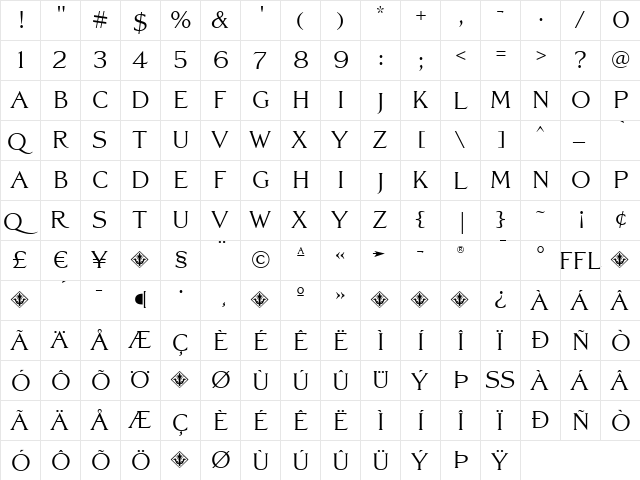
GrandCentral-Light Regular
| Designer | Tobias Frere-Jones |
Design Context for GrandCentral-Light Typeface
GrandCentral-Light offers clean, dependable letterforms without strong stylistic allegiance, making it a practical choice for designers who need flexibility. The delicate stroke weight brings airiness and refinement to layouts.